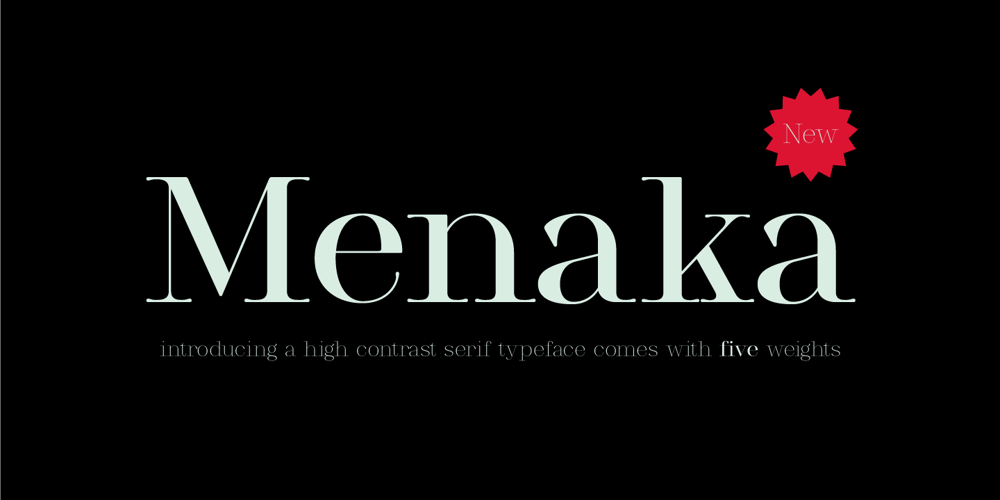
Menaka Serif Font Family was designed by Gunjan Panchal and published by Gunjan. Menaka Serif contains 6 styles and family package options. Menaka is a high contrast type family. The main feature of the typeface is round shaped stroke ends, which distinct it with other serif fonts. Menaka solves problem in many design areas such as books, fashion brands and beauty products. Thought behind Menaka is to give classic yet modern form to a font.Menaka also serves well in short texts, article introductions, brands identity and packaging.Have fun with Menaka!